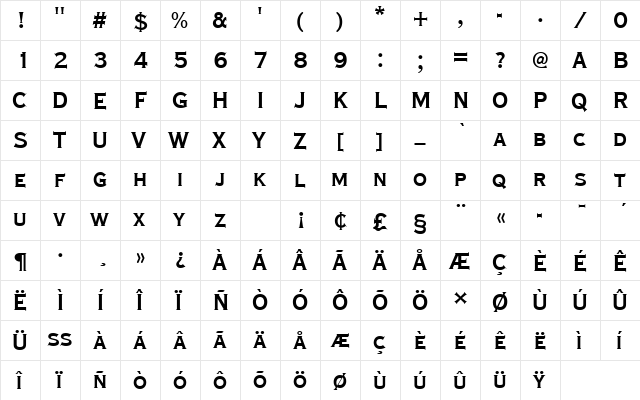
CopperplateTBolConRo1 Regular
Design Context for CopperplateTBolConRo1 Typeface
CopperplateTBolConRo1 is a composed and adaptable typeface that performs quietly and consistently across a wide range of design contexts.